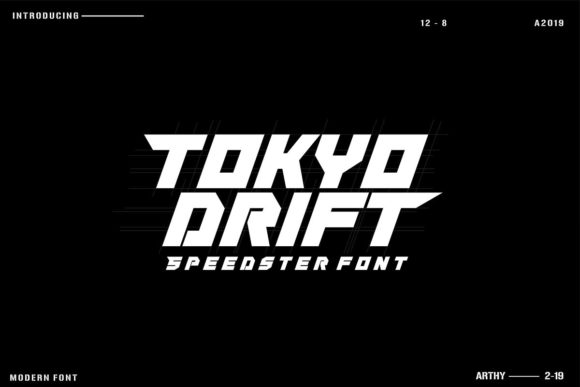
Buckle up and let the Speedster Font ignite your creative engine, taking you on an adventure through the world of typography! This display font is not just a collection of letters; it's a symphony of energy and determination, crafted to make your designs roar with confidence.
Speedster Font is more than just a font; it's an experience. Its energetic strokes and dynamic curves embody the spirit of individuality. Each letter carries a unique persona, refusing to blend into the ordinary. With Speedster Font, your designs will break free from the mundane and take on a life of their own.
Whether you're crafting logos, posters, headlines, or any other design project that demands attention, Speedster Font is your co-pilot. Its unmistakable style will leave a lasting impression, making your creations impossible to ignore. It's the perfect choice for those who dare to stand out, to make a statement, and to leave their mark on the world.
But Speedster Font isn't just about aesthetics; it's also incredibly versatile. With a comprehensive character set that includes alternates, punctuation, and numbers, this font is ready to tackle any design challenge you throw its way. It's a workhorse that can adapt to any project, from playful and whimsical to bold and elegant.
Experience the thrill of Speedster Font today and unleash your creative potential. It's the perfect companion for those who want to leave their mark on the world, one design at a time. Embrace the energy, channel the determination, and let Speedster Font take your designs to the next level.